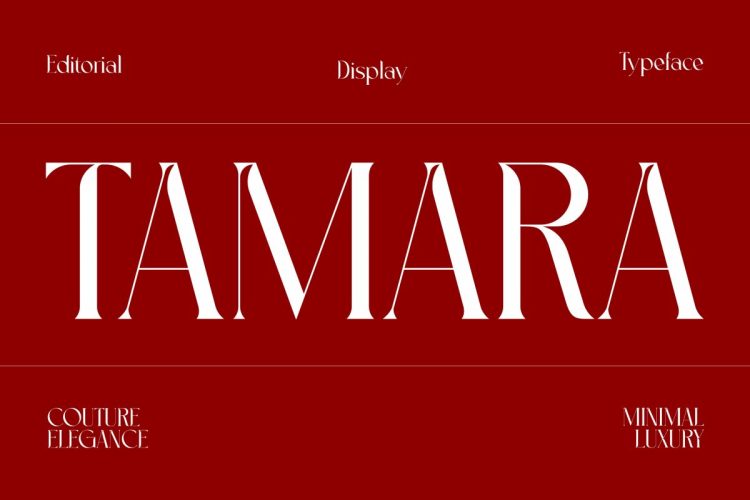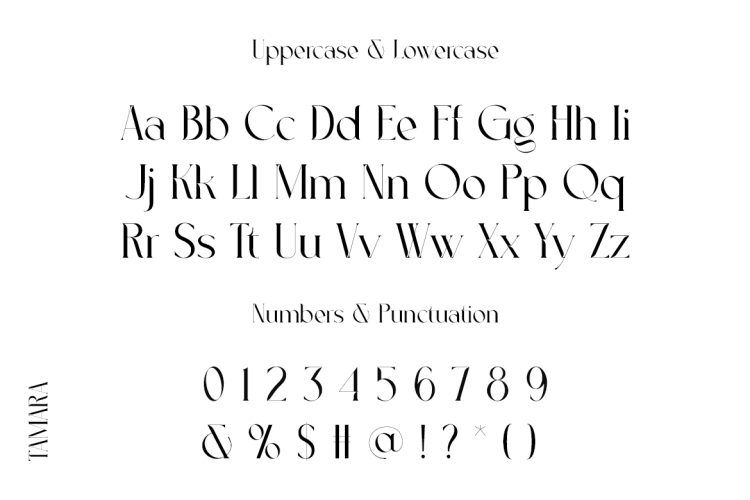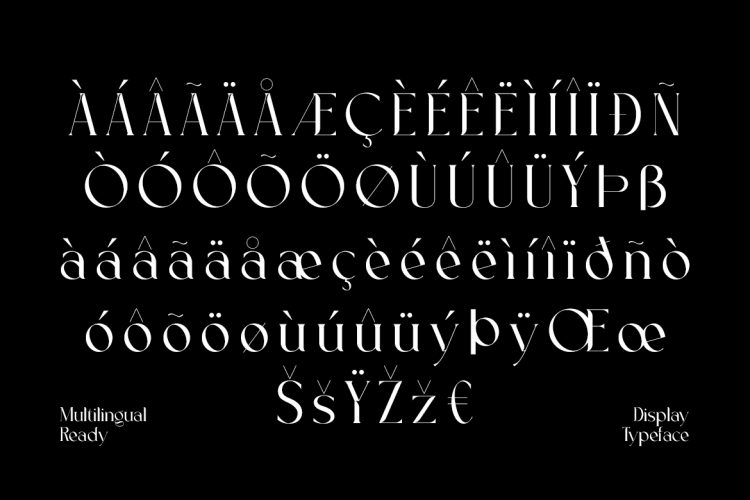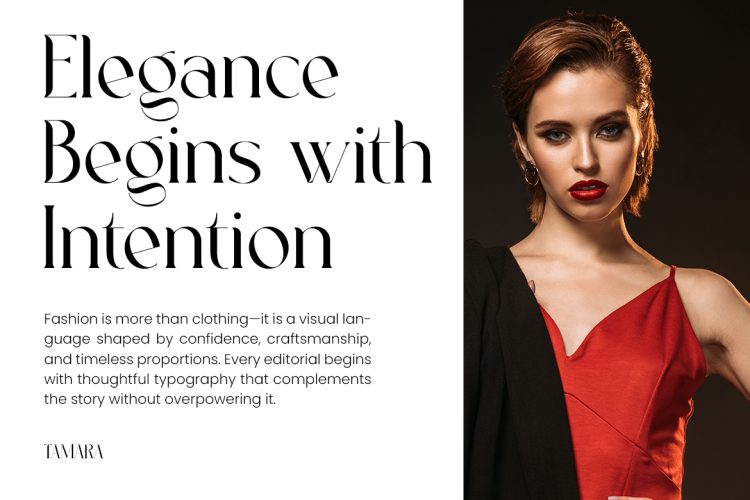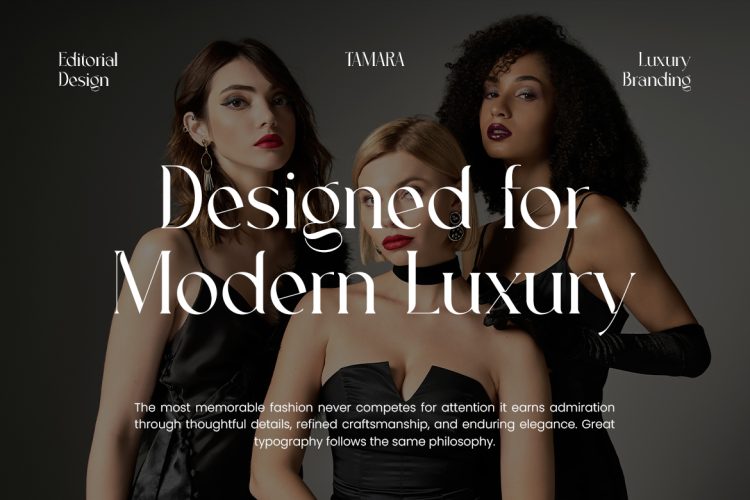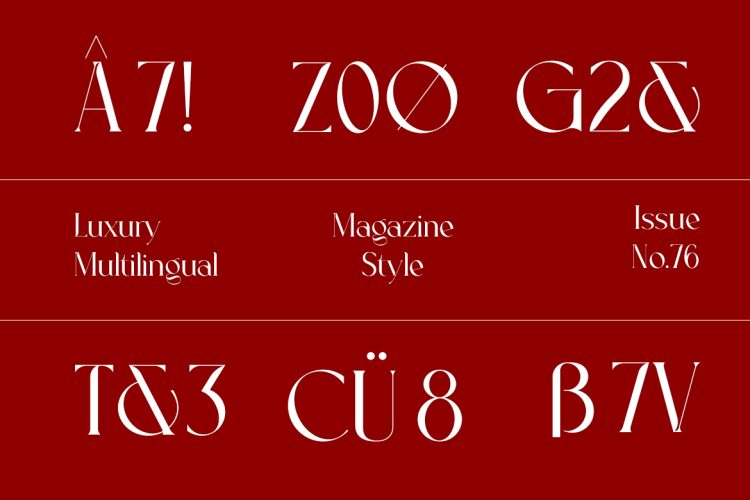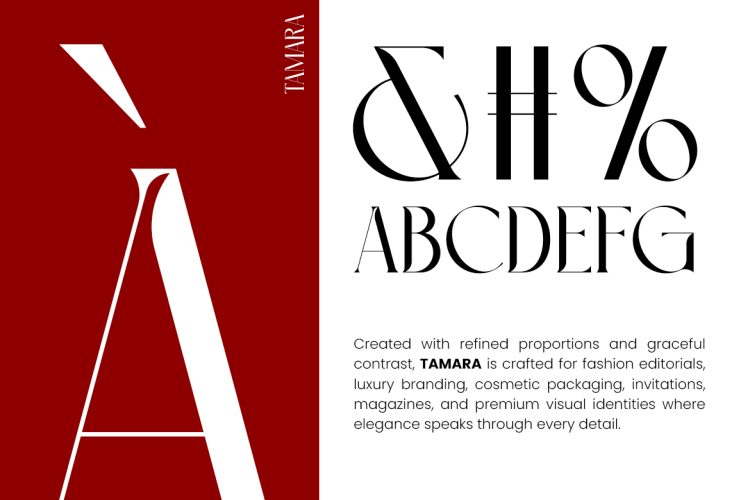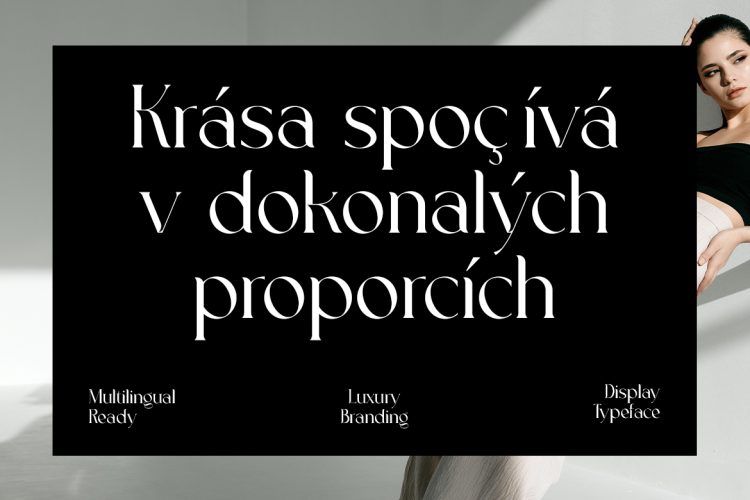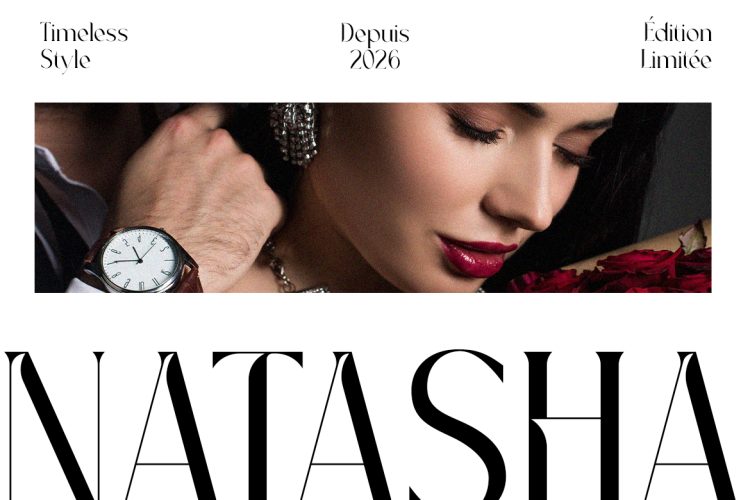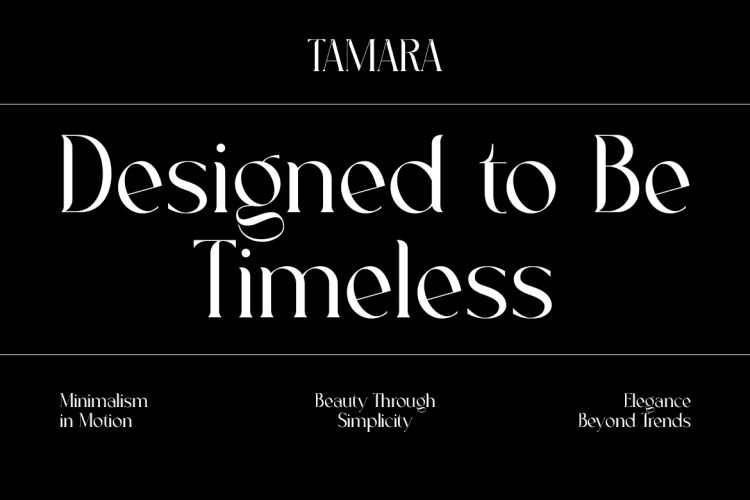
Instagram Font Tamara โ Where Modern Luxury Meets Timeless Expression
Instagram Font Tamara is a refined serif typeface crafted for brands that believe elegance is found in precision. Rather than chasing trends, Tamara embraces timeless sophistication through graceful curves, high-contrast strokes, and beautifully sculpted letterforms. Moreover, every character is carefully balanced to create an editorial look that feels both luxurious and contemporary. As a result, your headlines appear confident, artistic, and effortlessly premium. At the same time, its exceptional readability makes it ideal for both print and digital projects. Furthermore, with Multilingual Support for 67 languages, Tamara helps your message reach audiences around the world without sacrificing style.
Why Instagram Font Tamara Deserves a Place in Your Collection
Instagram Font Tamara is more than a typefaceโit’s a visual signature for premium brands. Not only does it elevate typography, but it also enhances the emotional value of every design. In addition, its elegant proportions work beautifully across fashion campaigns, luxury packaging, magazine editorials, cosmetic branding, jewelry collections, wedding stationery, premium websites, and social media content. Likewise, its sophisticated personality pairs perfectly with minimalist layouts. Meanwhile, the multilingual character set ensures seamless communication across international markets. Most importantly, Tamara creates a lasting impression that feels exclusive, refined, and unmistakably professional.
- Luxury fashion brands
- Beauty and skincare packaging
- Editorial magazines and lookbooks
- Jewelry and perfume branding
- Wedding invitations
- Premium logo design
- Instagram and social media content
- High-end websites and visual identity
Elevate Every Word
If your brand speaks through elegance, Tamara is the perfect voice. Furthermore, its timeless aesthetic instantly enhances every composition. Consequently, your projects feel more polished, credible, and luxurious. Finally, add Instagram Font Tamara to your collection today and create typography that inspires confidence, captivates attention, and remains beautiful for years to come.